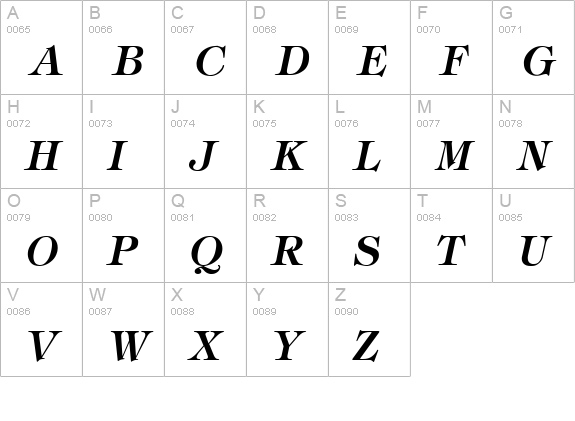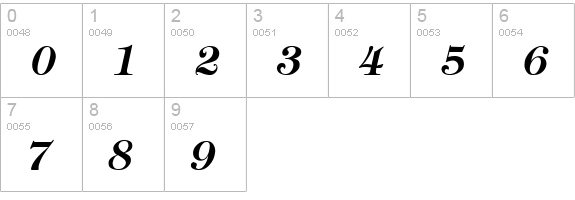
Introducing Tiffany-BoldItalic, a breathtakingly beautiful font that effortlessly combines elegance and boldness. This font is the epitome of sophistication, making it the perfect choice for any project that requires a touch of luxury. With its unique blend of boldness and italics, Tiffany-BoldItalic stands out from the crowd, adding a touch of drama and flair to any design. The fluid curves and delicate detailing of each character create a sense of movement and grace, capturing attention and leaving a lasting impression. Not only does Tiffany-BoldItalic exude style and charm, but it also offers the convenience of being freely available to download at FontsMarket.com. This means that you can effortlessly elevate your designs with this stunning font without worrying about breaking the bank. Whether you're creating eye-catching logos, elegant wedding invitations, or captivating headlines, Tiffany-BoldItalic is the perfect choice to bring your vision to life. Its versatility allows it to seamlessly blend into any design aesthetic, whether it be modern and sleek or vintage and nostalgic. Download Tiffany-BoldItalic today from FontsMarket.com and experience the beauty and freedom that this font brings to your creative projects. With its timeless appeal and the convenience of being freely available, Tiffany-BoldItalic is the go-to font for designers who want to make a lasting impression.